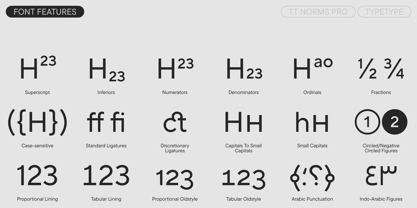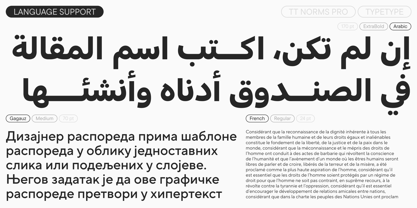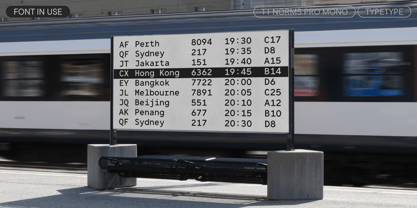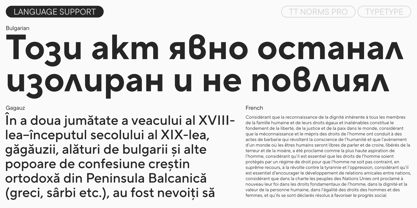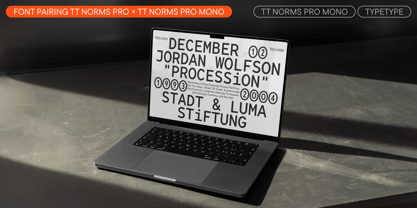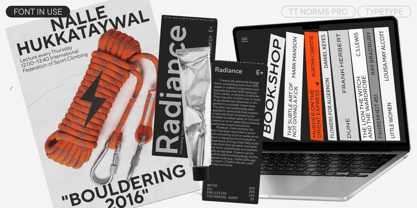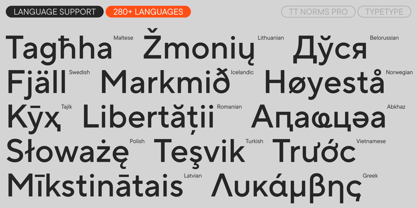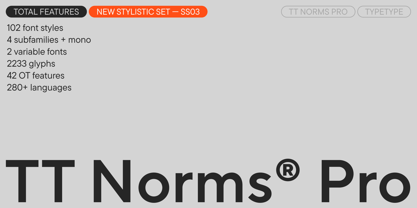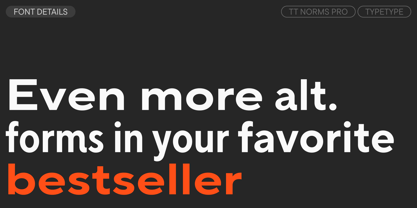
TT Norms® Pro
Die Schriftfamilie TT Norms Pro wurde von Ivan Gladkikh, Antonina Zhulkova, Pavel Emelyanov, Marina Khodak, TypeType Team entworfen und von TypeType veröffentlicht. TT Norms Pro enthält 104 Stile und Familienpaketoptionen.
Meet the enhanced TT Norms® Pro version 4.000—now with Arabic language support!
TT Norms® Pro is a functional geometric sans serif for aesthetic solutions and a TypeType studio bestseller. It has enjoyed tremendous success since its release—and it’s no surprise! It is a stylish, concise, and versatile font that will become a go-to solution for any task.
On one hand, TT Norms® Pro is aesthetic and functional, allowing it to be used as an accent. On the other, it is neutral enough to be the ideal "workhorse" that works flawlessly in running text. This font is suitable for any sector: a streaming service or a banking system, a clothing brand or the automotive industry. It is equally convenient for use on the web or in print
Currently, the TT Norms® Pro typeface includes the most complete set of fonts—both in terms of the number of styles and the character set. Moreover, it is the font with the most extensive language support in the TypeType collection. It also includes numerous OpenType features and several stylistic sets that can lend the design a friendlier look.
In version 4.000, the most important update is the addition of a font based on the Arabic alphabet. Despite its geometric base, its design has a noticeable humanist character and coexists with notes of calligraphy typical of the Naskh style in which it is drawn. The Arabic version of TT Norms® Pro looks calm in the thin masters, while in the bold ones, it becomes more dynamic and striking. One of the key features of the typeface in the Arabic expansion is the huge number of ligatures, thanks to which letter connections look smooth and natural.
The wide range of widths allows the font to be used both for large, wide headlines on posters and for setting compressed text on packaging. A complex and meticulously calibrated system of letter proportions, spacing, and diacritic placement contributes to good legibility even at small point sizes. And the large selection of styles allows for solving a wide spectrum of tasks.
TT Norms® Pro 4.000 includes:
- 104 styles: 44 uprights, 44 italics, and 2 variable fonts (TT Norms® Pro Variable, changing along three axes, and TT Norms® Pro Mono Variable, changing along weight and slant)
- 2,564 glyphs in each style, including an expanded set of punctuation, symbols, and currencies (including the Dirham)
- 4 widths: TT Norms® Pro with classic proportions, TT Norms® Pro Compact with more compact proportions, TT Norms® Pro Condensed with narrowed proportions, and TT Norms® Pro Expanded with widened proportions, as well as the monospaced font TT Norms® Pro Mono
- 46 OpenType features, including a large number of ligatures, fractions, numerators, and denominators
- 20 stylistic sets
- Support for over 290 languages, including 9 based on the Arabic alphabet
- Impeccable kerning and manual hinting
TT Norms® Pro has already become the corporate font for brands such as ASUS, AliExpress, CBSN, DreamWorks, Doordash, Intercom, and many others. Upon request, TT Norms® Pro can be customized—we will adapt the font for your project. You can learn more about customization in the corresponding section.
In addition to the TT Norms® Pro family, we created the serif TT Norms® Pro Serif. The fonts combine perfectly with each other, forming a font pair.